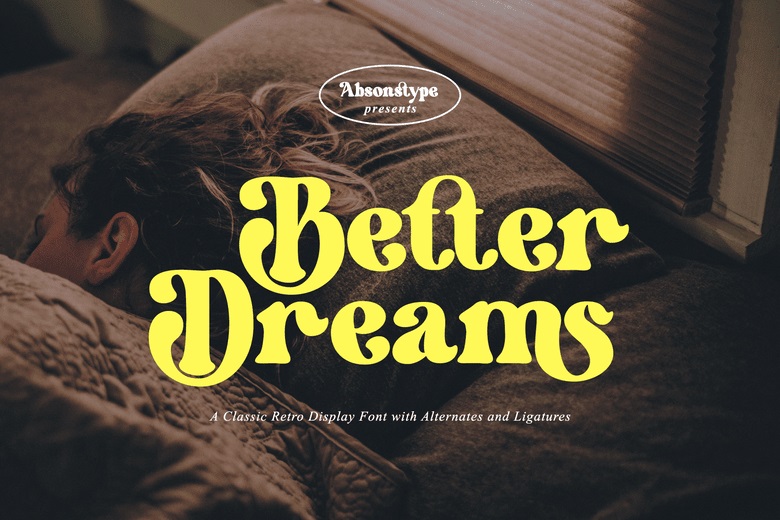
Better Dreams Font
Better Dreams is an enchanting Bold Serif display typeface. This elegant font cleverly fuses uppercase and lowercase forms to create a well-balanced aesthetic perfect for breathing life into your creativity. Better Dreams is versatile and ideal for a range of designs including striking headlines, distinctive logos, eye-catching posters, unique packaging, stylish T-shirts, and many more avenues of artistic expression.
Better Dreams Serif Font